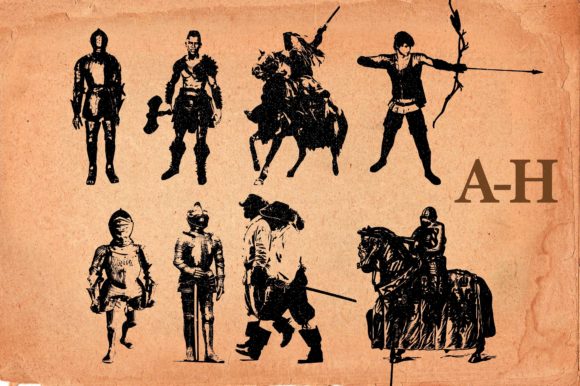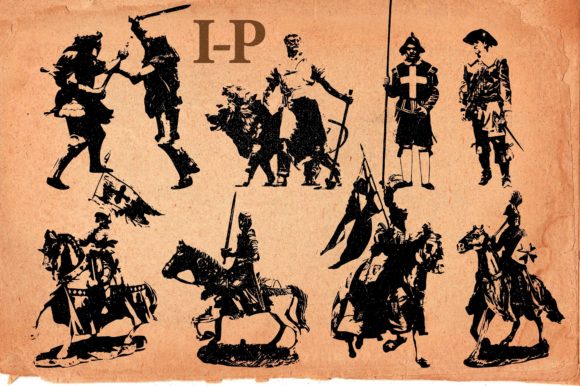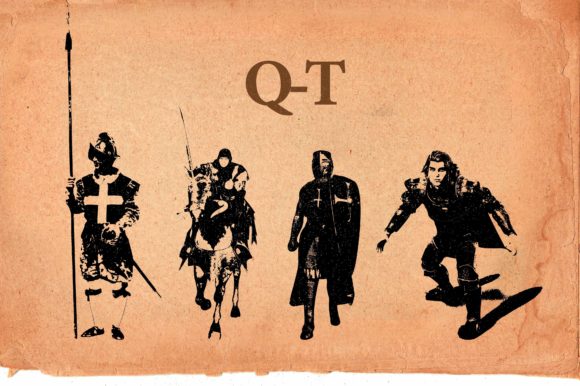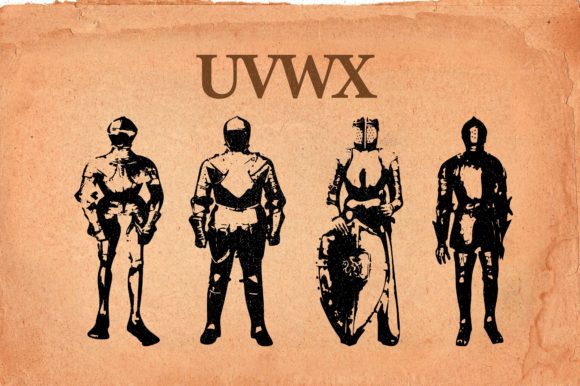
Medieval Characters Font
About Medieval Characters Font
Medieval Characters is a clean and neat dingbats font that brings a touch of medieval charm to your designs. Whether you’re working on projects related to history, fantasy, or simply want to add a unique flair to your creations, this font is a valuable asset to your font library.
The beauty of Medieval Characters lies in its ability to transport your audience to the medieval era. The font features a collection of glyphs inspired by medieval motifs, such as knights, castles, swords, shields, and other elements associated with that time period. These characters can be used to create visually captivating compositions, adding a sense of authenticity and nostalgia to your designs.
One of the strengths of Medieval Characters is its versatility. The clean and neat design of the font allows it to blend seamlessly with various design styles and themes. Whether you’re working on digital designs, print materials, logos, or even crafting medieval-inspired invitations and stationery, this font can elevate your creations and give them a distinct medieval touch.
Using Medieval Characters is as simple as typing the corresponding letters, and each character will transform into a medieval-inspired symbol. You can mix and match these symbols to create unique compositions or use them individually as decorative elements. The font provides a wide range of options, allowing you to experiment and bring your creative vision to life.
Whether you’re designing for personal projects, educational materials, or even creating content for games and entertainment, Medieval Characters adds depth and character to your work. Its clean and neat design ensures legibility while maintaining the charm of medieval aesthetics.
In conclusion, Medieval Characters is a clean and neat dingbats font that brings the essence of the medieval era to your designs. With its collection of glyphs inspired by medieval motifs, this font enhances any creation, adding a touch of authenticity and nostalgia. Whether you’re working on historical, fantasy, or themed projects, Medieval Characters is a wonderful asset to have in your font library.